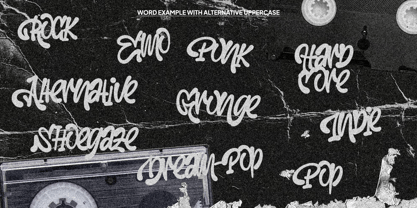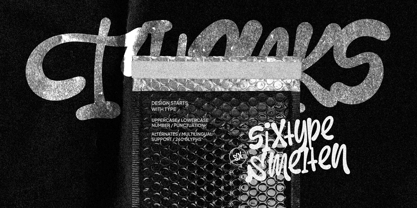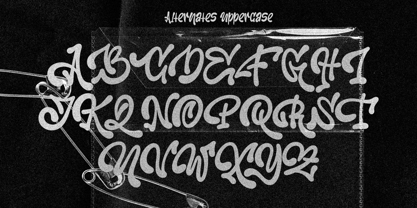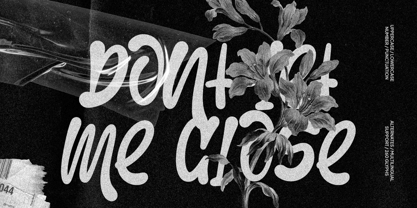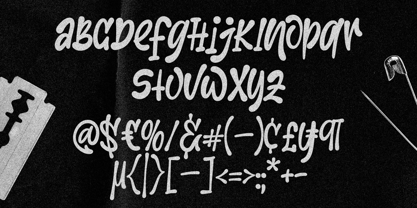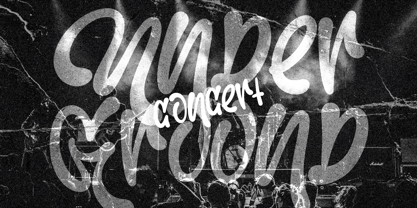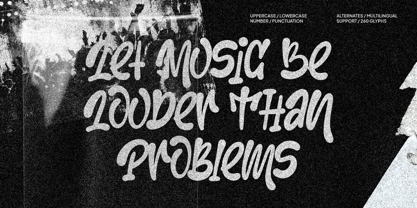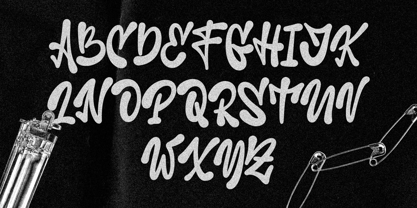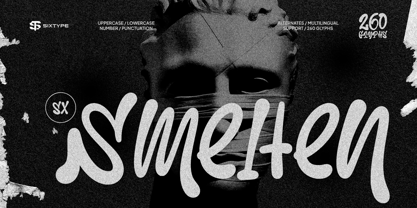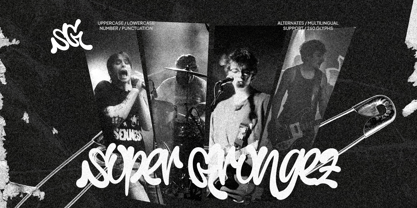
Sx Smelten
by Sixtype Foundry
The Sx Smelten Font Family and published by Sixtype Foundry. Sx Smelten contains 1 styles. More about this family
Smelten is a bold handwritten display font characterized by expressive brush-inspired strokes and a rebellious street-style attitude. With its rounded terminals, dynamic curves, and eye-catching alternate characters, this font exudes a raw yet playful personality, making it perfect for music posters, album covers, streetwear branding, skate graphics, social media content, packaging, and modern lifestyle designs. Its handcrafted appearance ensures a strong visual impact while maintaining excellent readability, making it ideal for bold headlines and creative typography projects. Smelten offers a comprehensive set of features, including uppercase and lowercase letters, numerals, punctuation, multilingual support, and stylish alternate characters, empowering designers to create unique and authentic compositions effortlessly.